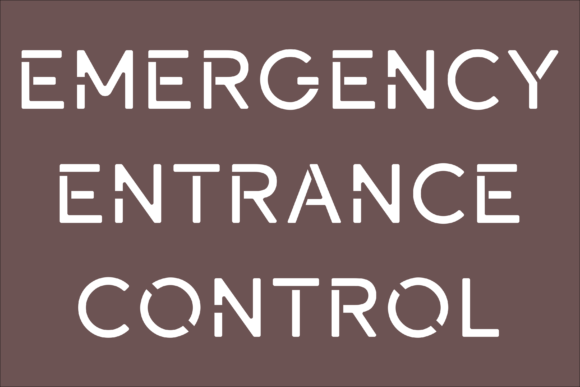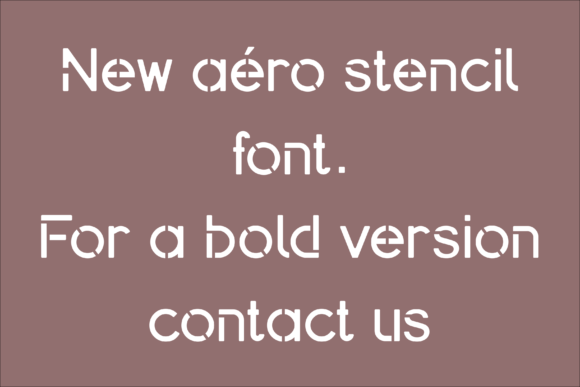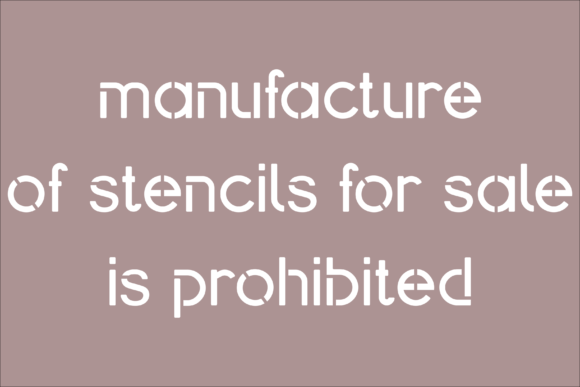
Introduction to Markplane Font
Markplane is a minimal and cool display font.
Markplane Font offers exceptional quality and versatility, making it a valuable addition to your design toolkit. Whether you’re creating for personal projects or commercial use, Markplane Font delivers professional results.